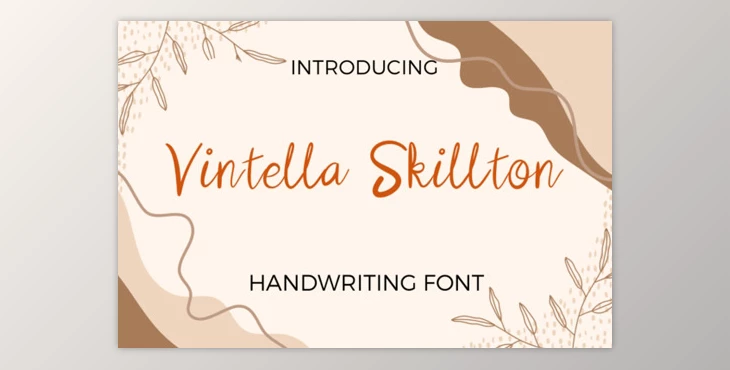
Vintella Skillton - Handwritten Font: Meet Vintella Skillton, a font exuding a charming handwritten style, complete with a natural texture to enhance the beauty of your designs.